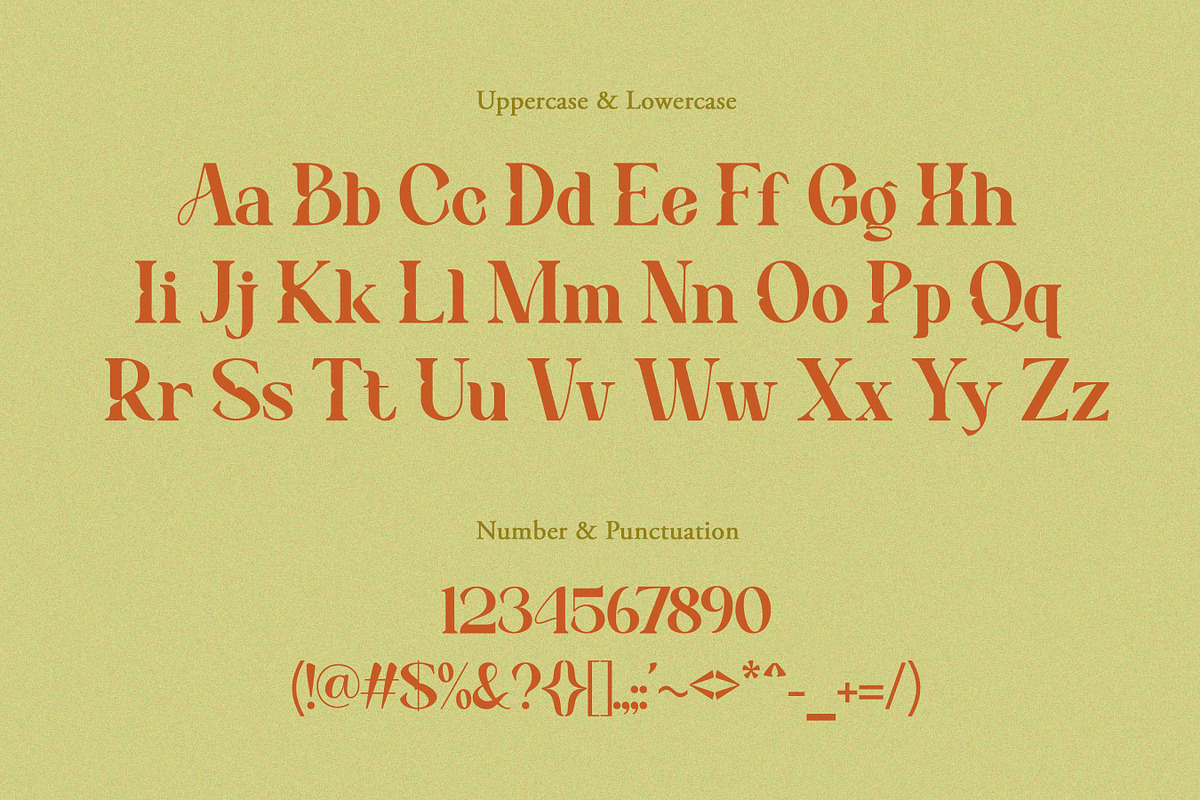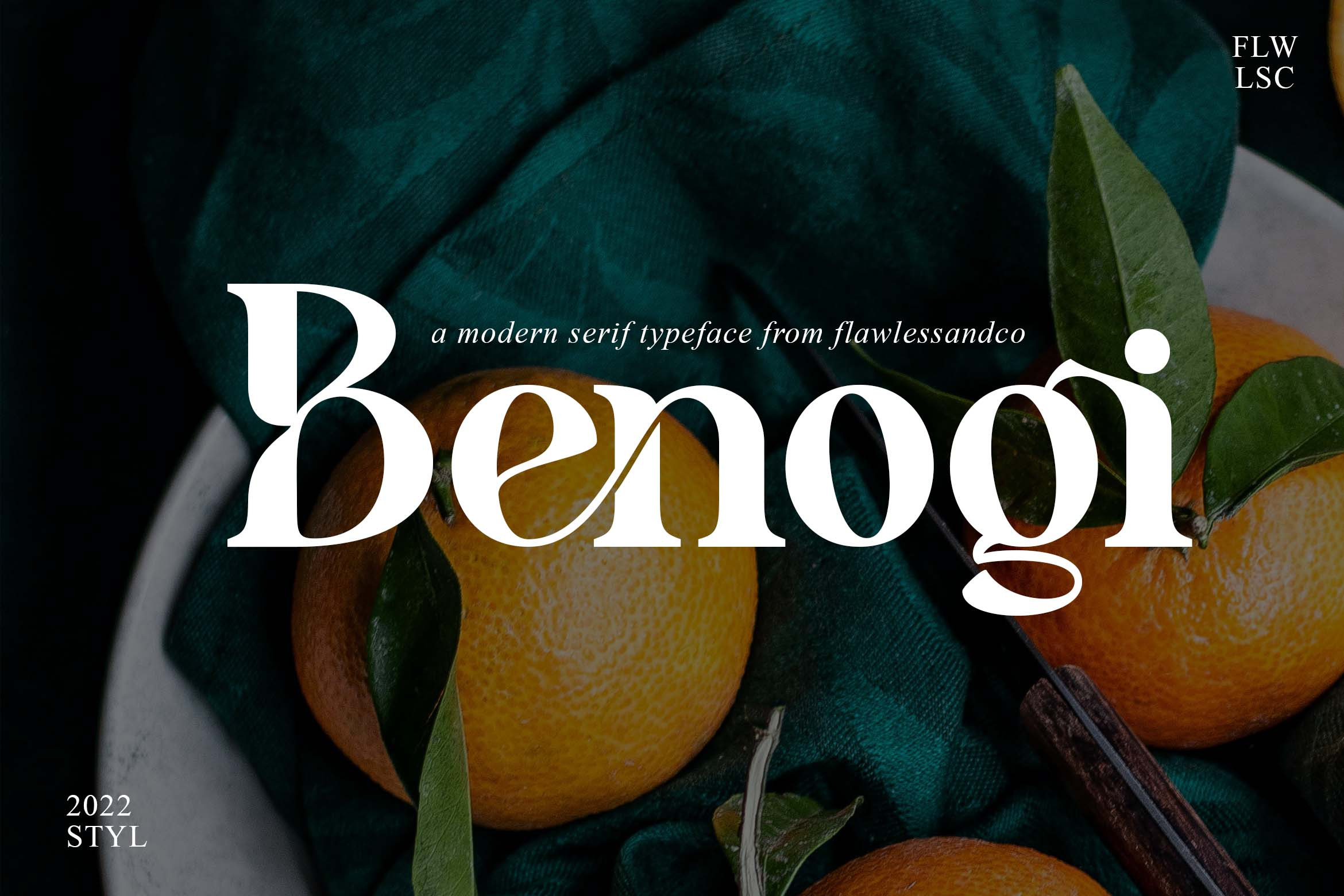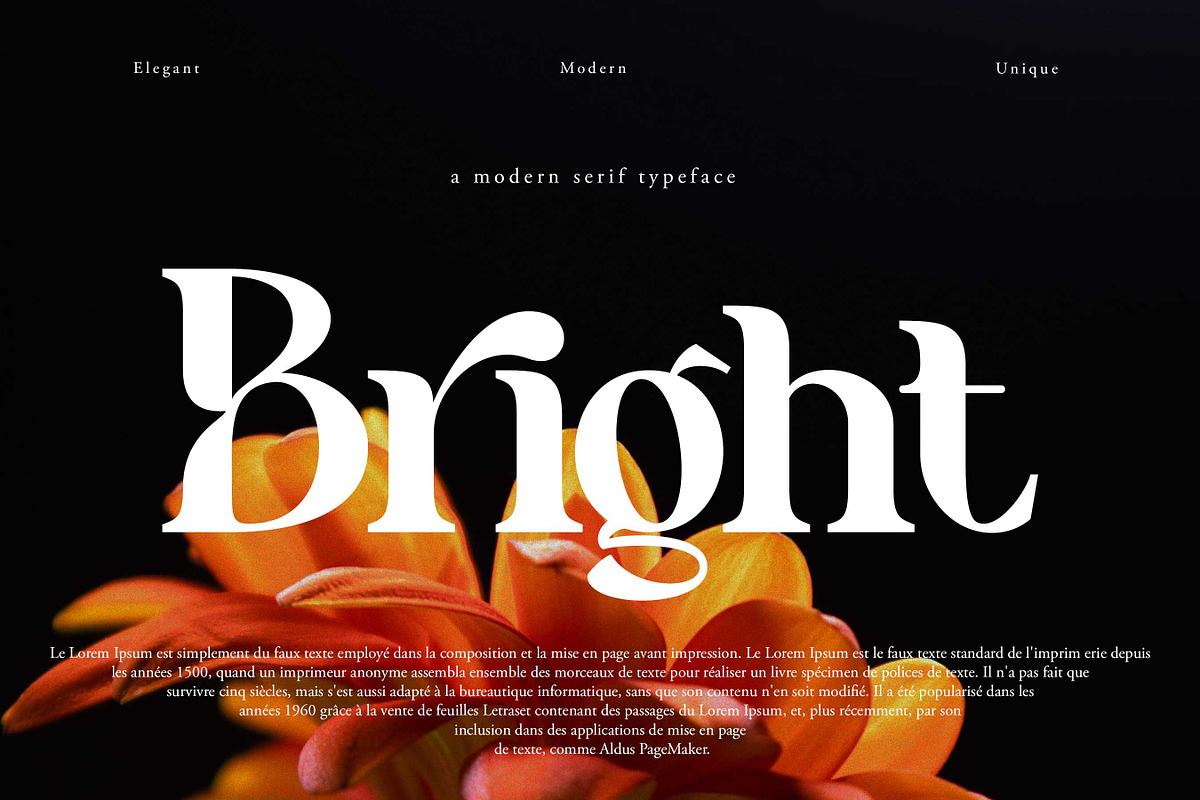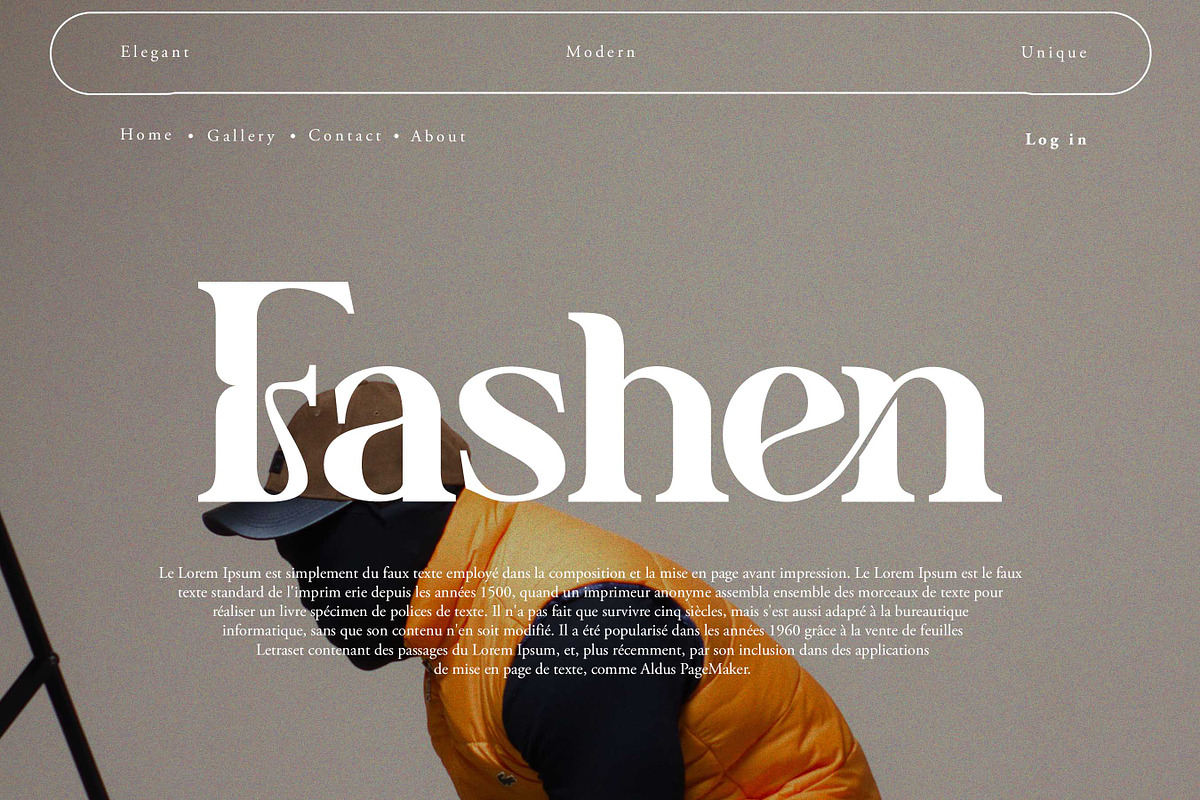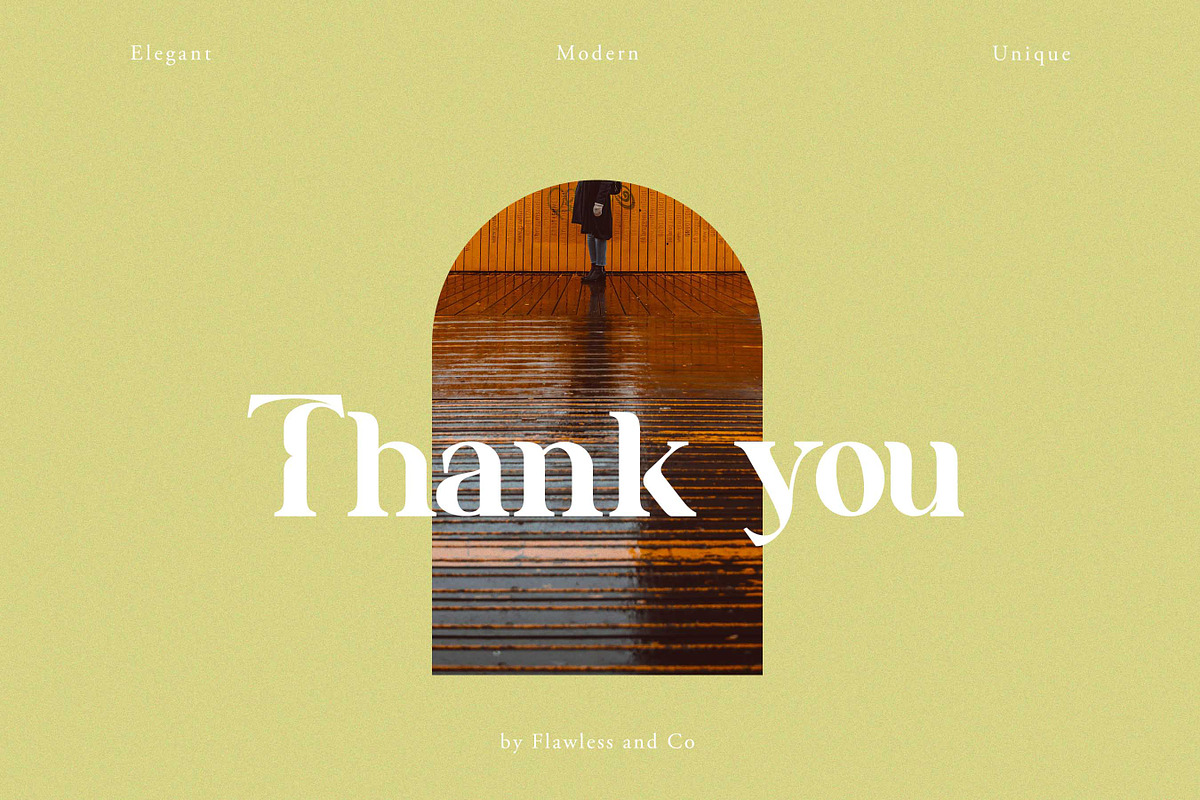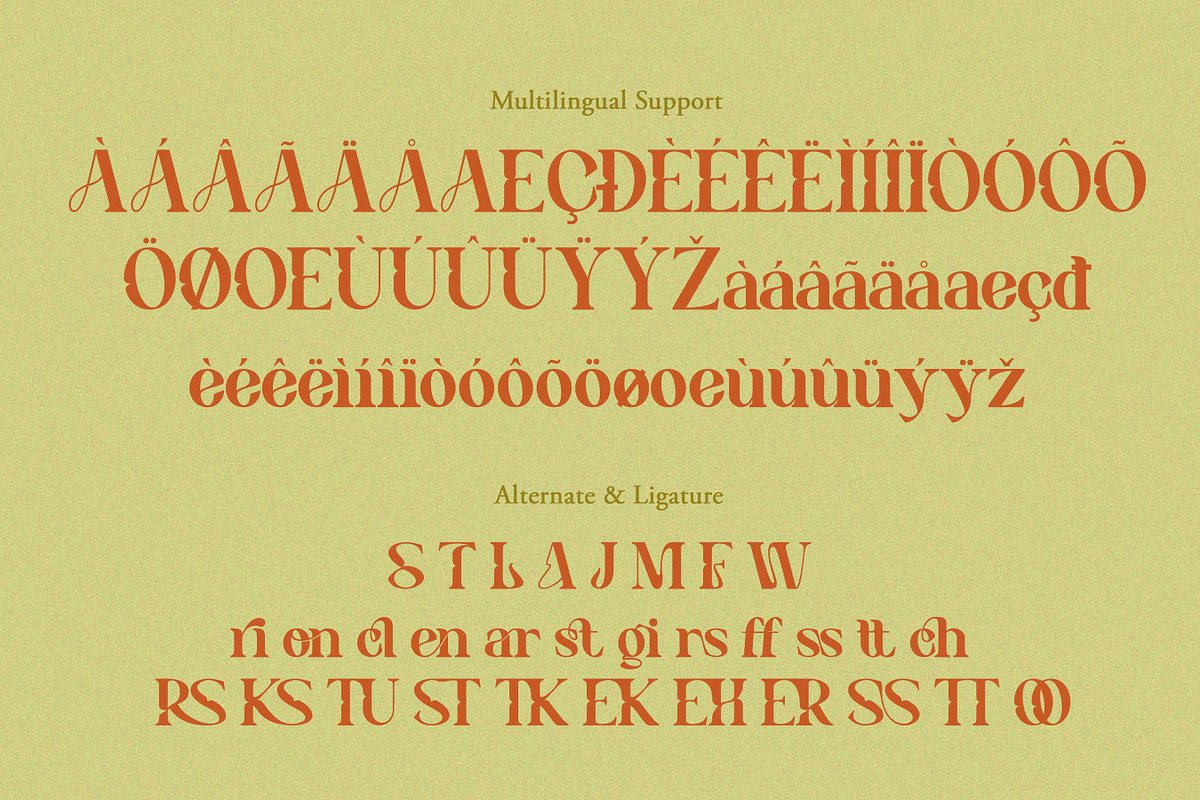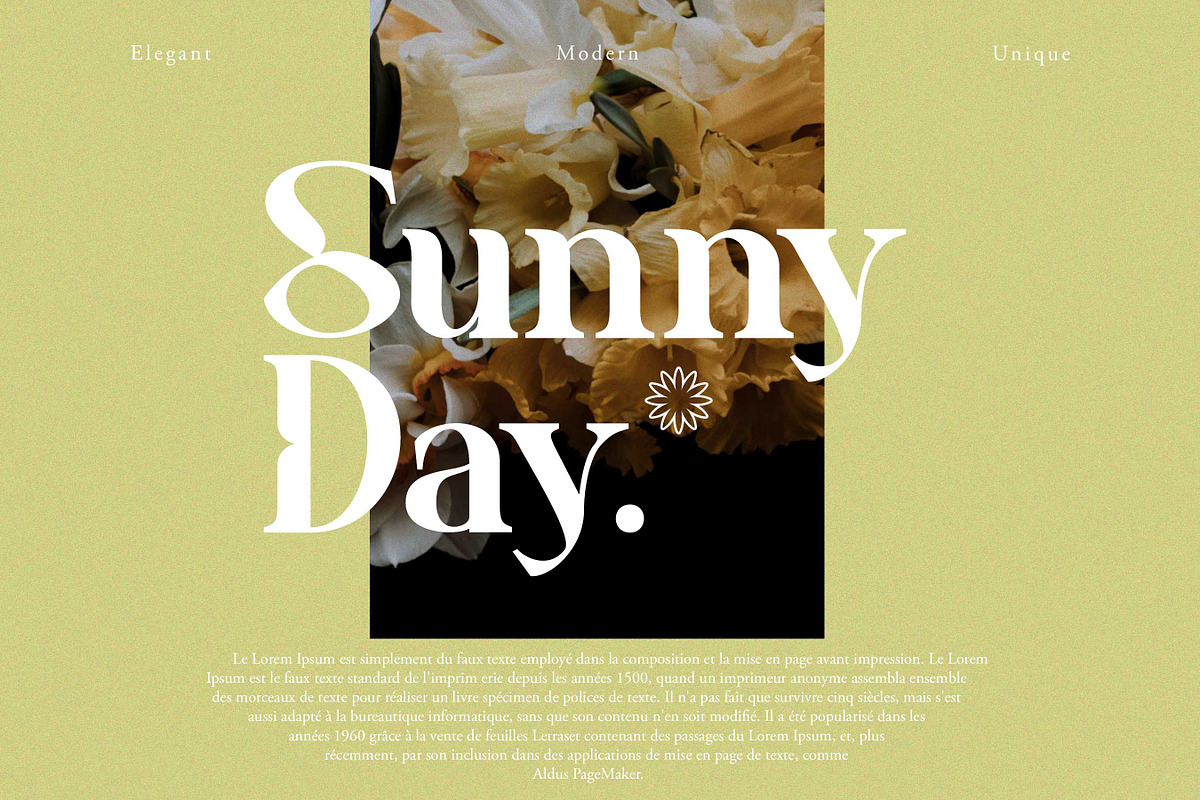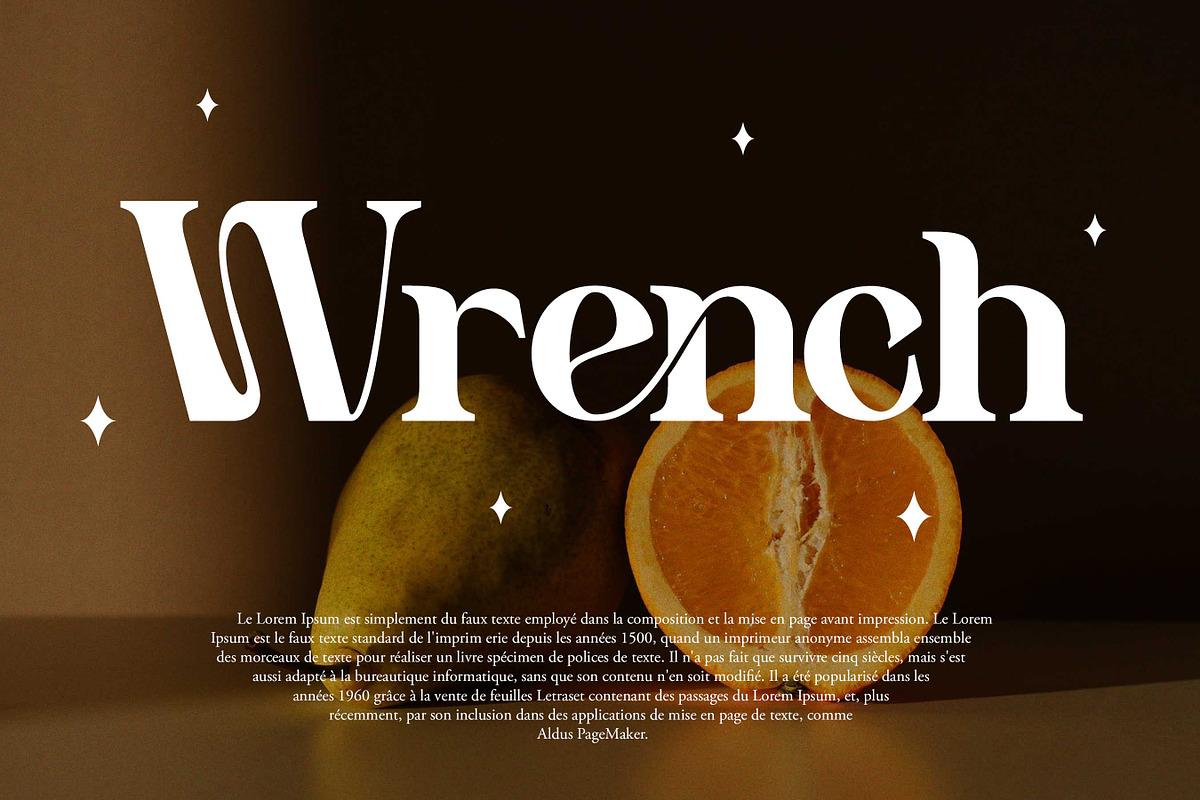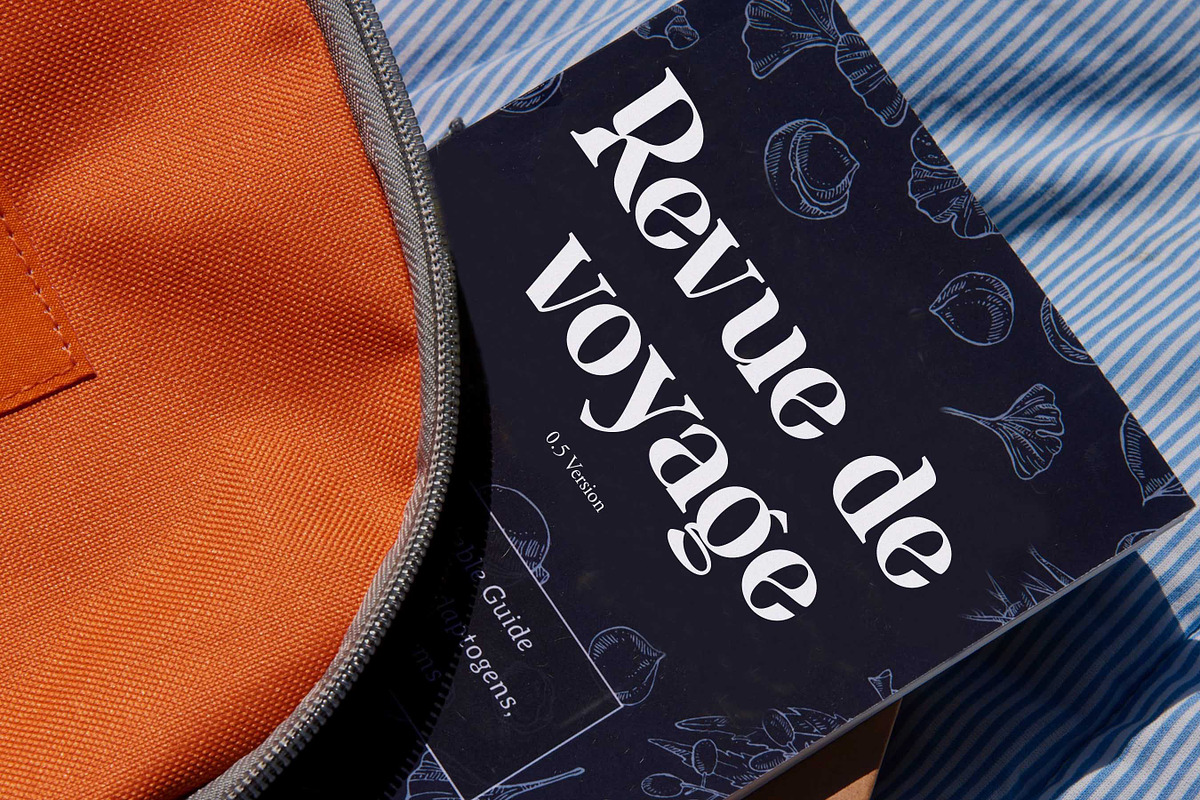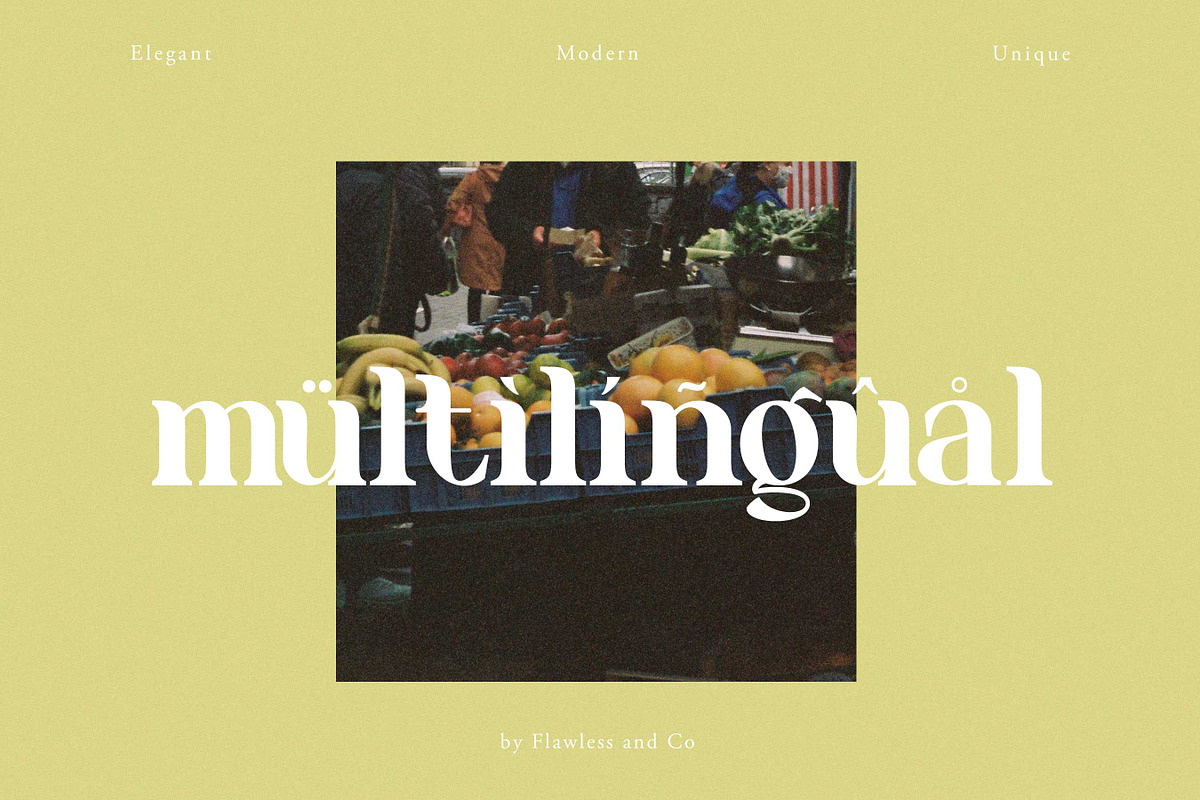
Benogi - Retro Serif Font
our latest creation, modern serif with various alternates and ligatures, multilingual support, an updated blend of bohemian style, suitable for branding, business, logos, magazines, and others
Multilingual Uppercase alphabet A-Z Lowercase alphabet a-z Alternate Character Numbers 0-9 Some punctuation